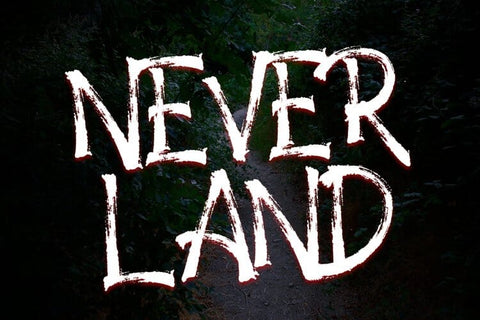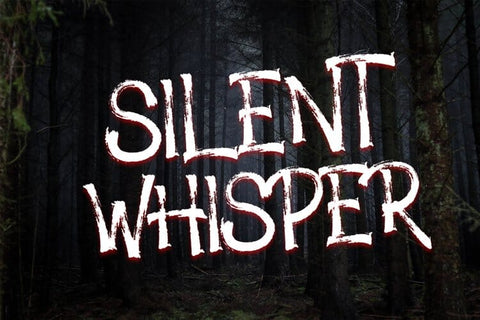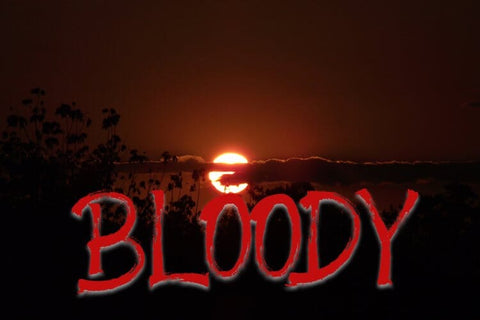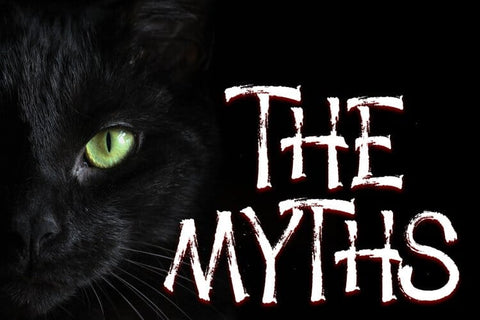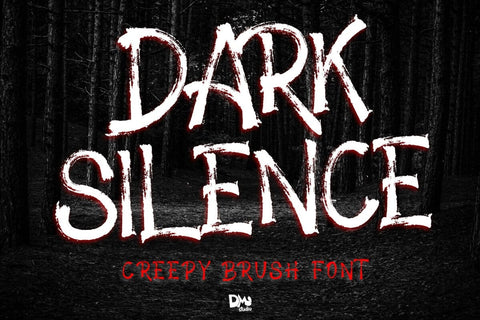
Dark Silence - Creepy Brush Font
Dark Silence – Creepy Brush Font
Dark Silence is a creepy brush font that blends unsettling energy with expressive strokes. Its jagged edges, irregular letterforms, and dark, ink-like texture make it ideal for horror designs, thriller posters, underground music covers, and Halloween-themed artwork. This font captures fear and intensity in every glyph.
Creepy Hand-Drawn Look: Distorted and scratchy letters for maximum tension and horror.
Expressive Brush Strokes: Crafted to resemble chaotic writing done in panic or rage.
Great for Horror Themes: Works perfectly in posters, trailers, games, and scary branding.
All-Caps Style with Unique Glyph Variations: Adds movement and imbalance.